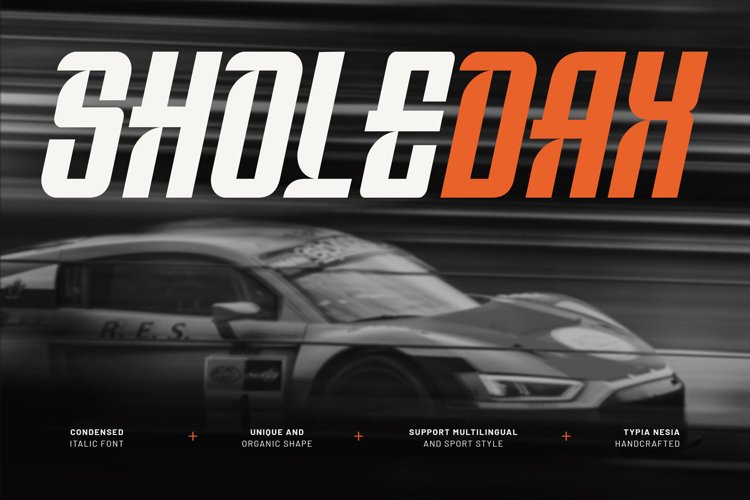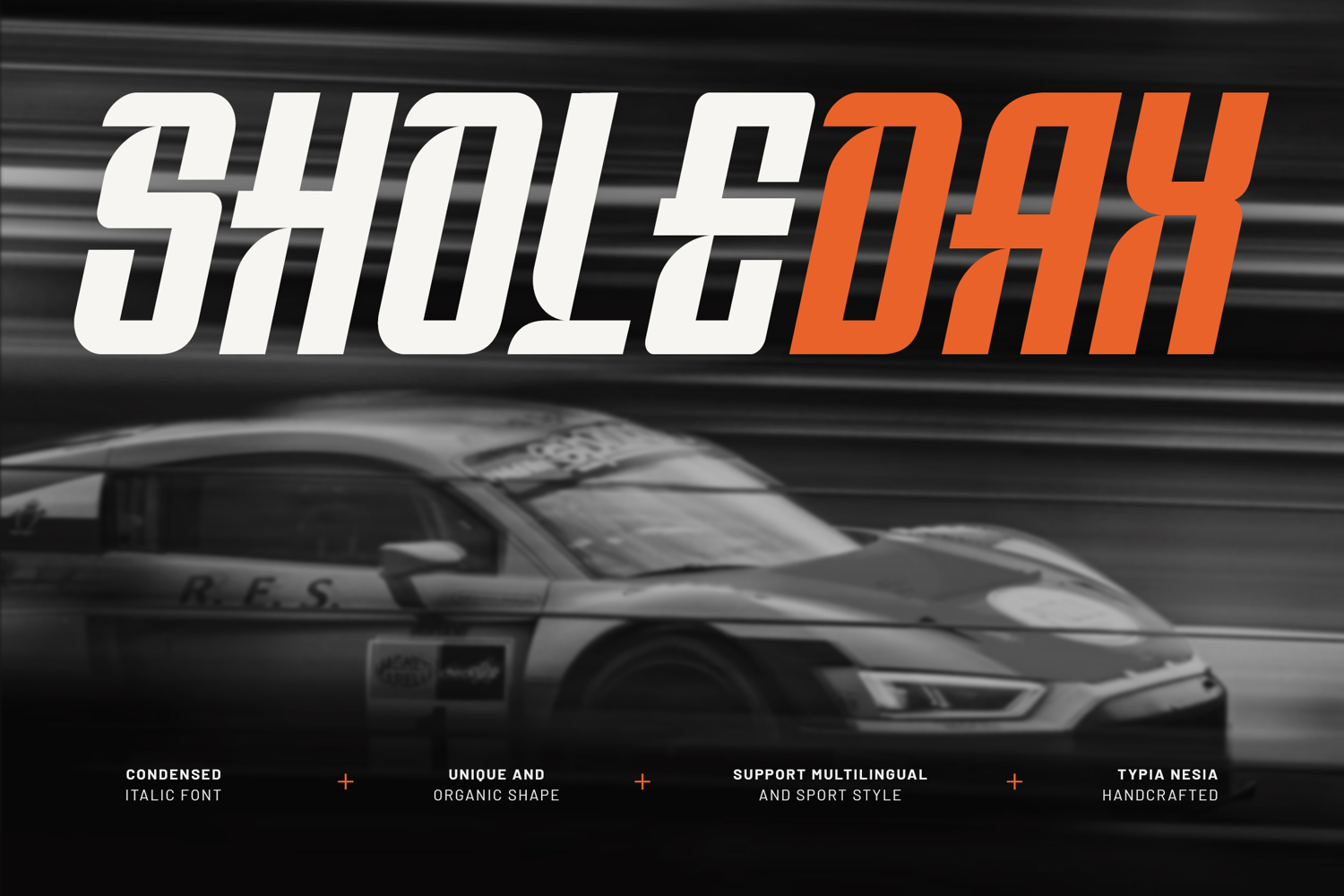
Sholedax - Modern Condensed Italic Racing Font
Sholedax - Modern Condensed Italic Racing Font - Bold Futuristic Sport Tech Display Font
Sholedax is a Modern Condensed Italic Racing Font designed with a bold, tall, and aggressive structure inspired by high-speed racing, sports competition, and futuristic technology, it's perfect for racing logos, sport branding, gaming titles, tech-inspired designs, futuristic posters, web headers, logotypes, space-themed visuals and projects that require a touch of modern with futuristic design. The character makes it highly readable while maintaining an energetic and competitive look, ideal for designer projects that demand speed, strength, and visual impact.